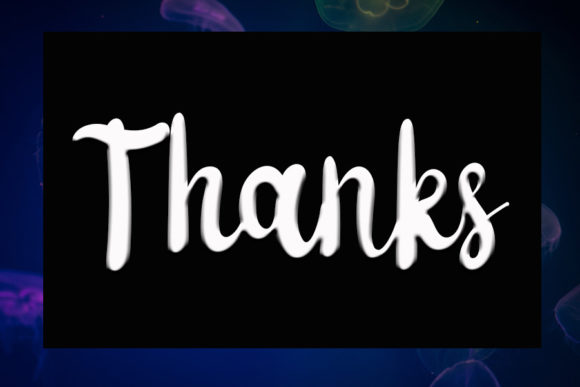
Introduction to Piranha Font
As a designer, you’ve probably experienced that moment of pure excitement when a project comes together in a way that exceeds your expectations. It’s a rush of creativity, a burst of inspiration, and a sense of pride in what you’ve created. But, let’s be honest, sometimes finding the perfect font can be a challenge. That’s where the Piranha Font comes in – a casual handwritten font designed to elevate your creative projects and leave a lasting impression.
With its classy calligraphic influences and contemporary feel, the Piranha Font is a valuable resource for designers looking to add a touch of sophistication to their work. Whether you’re working on a personal project or a client-based design, this high-quality font is sure to bring your vision to life. And the best part? It’s available for a free download, making it an accessible design resource for anyone.
Key Features of Piranha Font
- High-quality design for creative projects: The Piranha Font is designed to add a unique touch to your designs, making it a valuable resource for designers and artists.
- Transparent background: This font features a transparent background, allowing you to easily combine it with other design elements and create a seamless look.
- High-resolution design: The Piranha Font is designed at a high resolution, ensuring that it looks great on a variety of devices and screen sizes.
- Unique, hand-drawn design: The font features a unique, hand-drawn design that sets it apart from more generic fonts and adds a touch of personality to your designs.
Honest Review: Piranha Font
I recently had the chance to try out the Piranha Font for my latest creative project. I was excited to see how this design resource would perform, especially considering it’s available for a free download. The first thing I noticed was the high quality of the font – it’s clear that the creators put a lot of effort into making it stand out.
- ✨ Transparency: The Piranha Font has a transparent background, making it easy to layer over images and other design elements.
- ✨ Customizability: The font is highly customizable, with a range of options for size, color, and style.
- ✨ Versatility: The Piranha Font is suitable for a wide range of creative projects, from logos and branding to digital art and graphic design.
However, there are a few limitations to keep in mind. ⚠️ The font is only available for personal use, so if you’re planning to use it for commercial purposes, you may need to look elsewhere. Additionally, the font is a bit on the heavier side, which can make it difficult to read in certain contexts.
Overall, I’m impressed with the Piranha Font. It’s a high-quality design resource that’s perfect for personal projects. While it may have a few limitations, it’s definitely worth checking out if you’re looking for a unique and customizable font for your next creative project.
Using Piranha Font in Creative Projects
Piranha Font is ideal for creative projects that require a high-quality, unique font. Use it in Canva, Adobe Photoshop/Illustrator, or PowerPoint/Word to add a touch of sophistication to your designs.
Tips for Getting the Most Out of Piranha Font
To get the most out of Piranha Font, use it with a transparent background to create a modern and sleek design. Experiment with different font sizes and styles to add depth to your creative project.
Common Use Cases for Piranha Font
Piranha Font is commonly used in branding, advertising, and digital design projects. Its unique design makes it perfect for creating eye-catching headlines and titles.